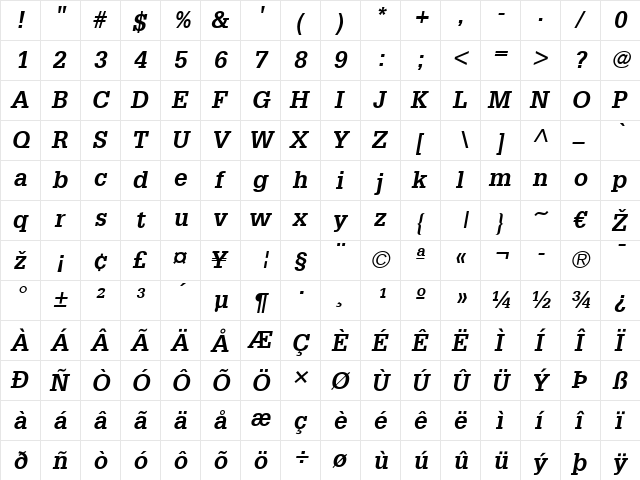
Glypha LT Bold Italic Font Preview
| Designer | Adrian Frutiger |
Design Context for Glypha LT Typeface
Glypha LT offers clean, dependable letterforms without strong stylistic allegiance, making it a practical choice for designers who need flexibility. Its italic angle brings a sense of urgency and motion to the letterforms. The heavy weight commands attention and anchors typographic hierarchies.
Pro Tip: Try Glypha LT for annotation and caption copy alongside an upright companion — the contrast in angle creates a dynamic but ordered typographic system.